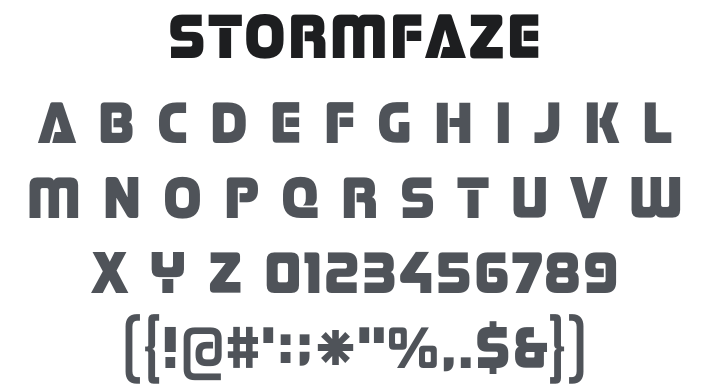
Stormfaze Font
About Stormfaze
Stormfaze is a bold, austere sci-fi headline typeface created in 1996 and inspired by the title cards of 1980s action films — its sturdy, slightly condensed letterforms project cold, technical precision with a militaristic authority that feels straight off a classified mission briefing. Clean geometric construction keeps it highly legible. Perfect for action movie-themed designs, sci-fi game titles, military branding, tech posters, and any headline needing no-nonsense, high-stakes gravitas.